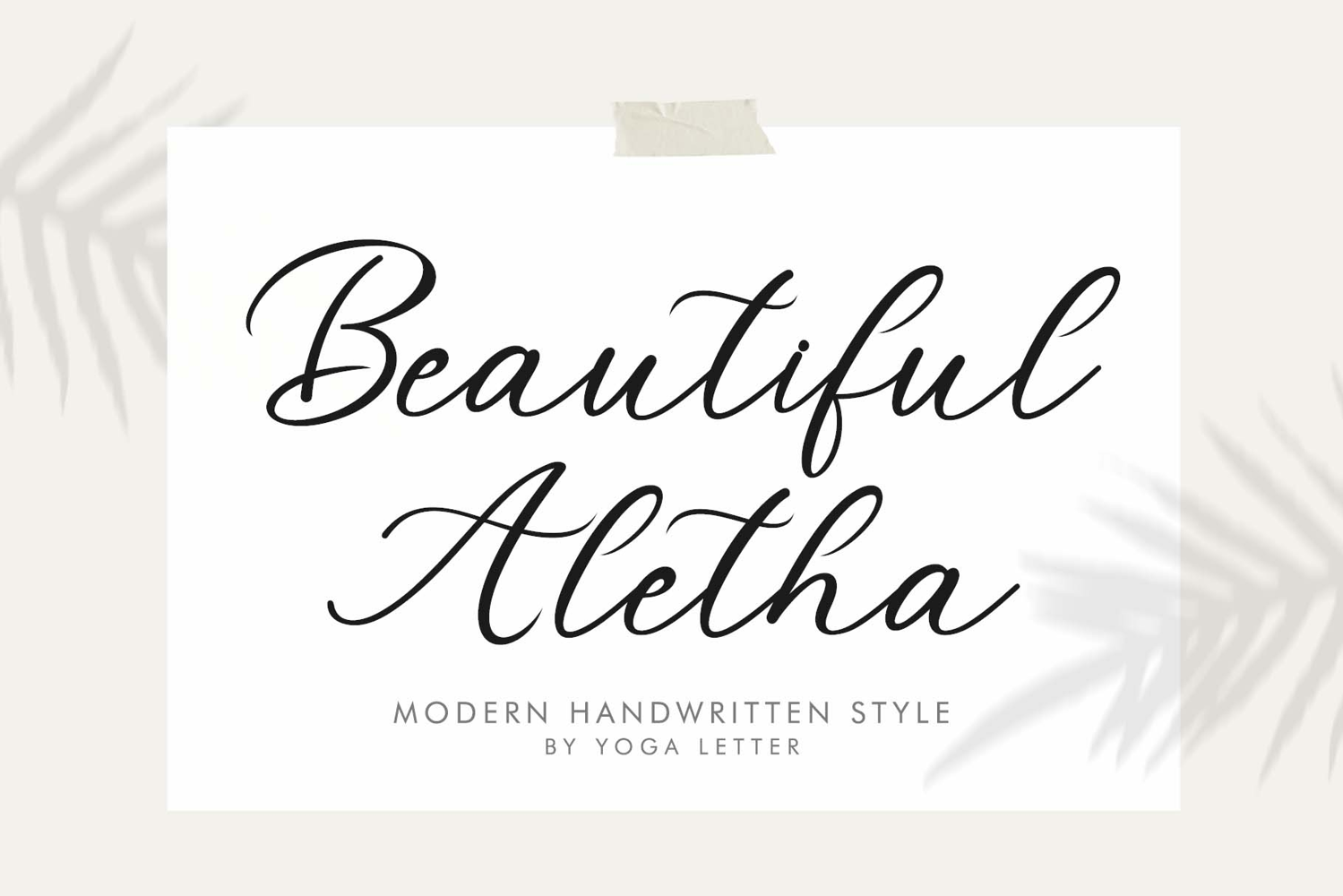
"Beautiful Aletha" is a beautiful and elegant handwritten font. It comes in two styles: regular and italic. It supports uppercase and lowercase letters, numerals, punctuations, and multilingual support. It's perfect for weddings, business branding, invitations, Christmas, social media, print, banners, posters, branding, stickers, and more.